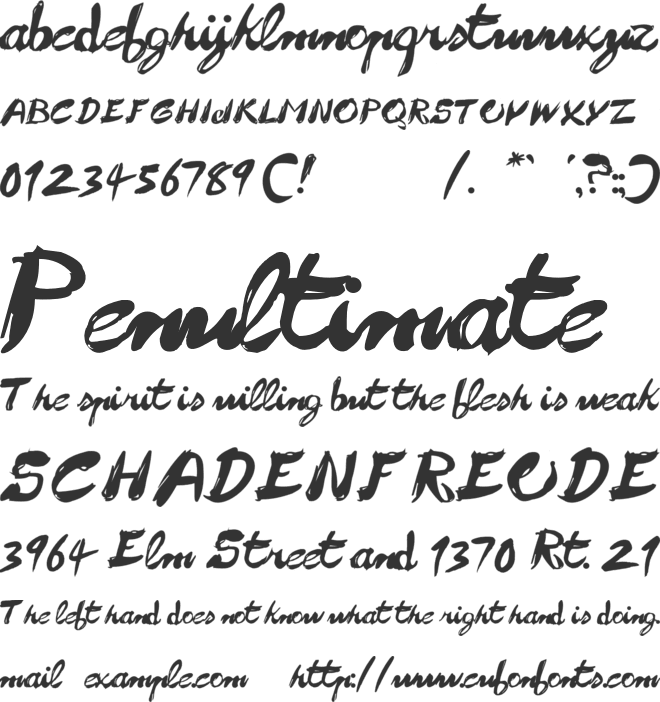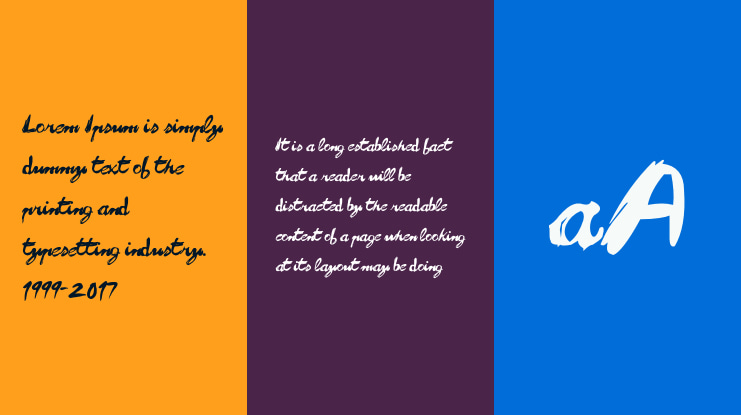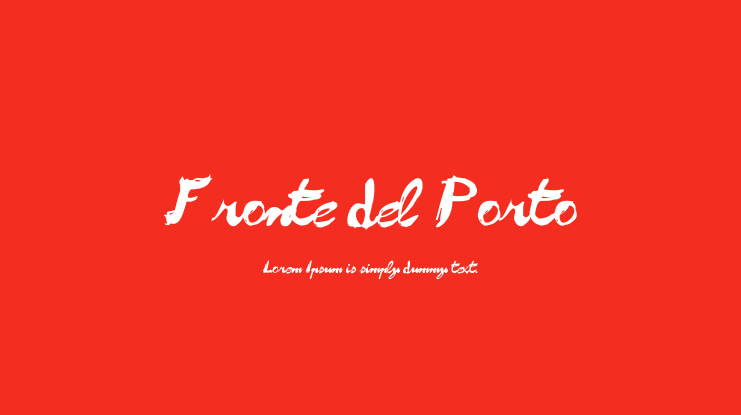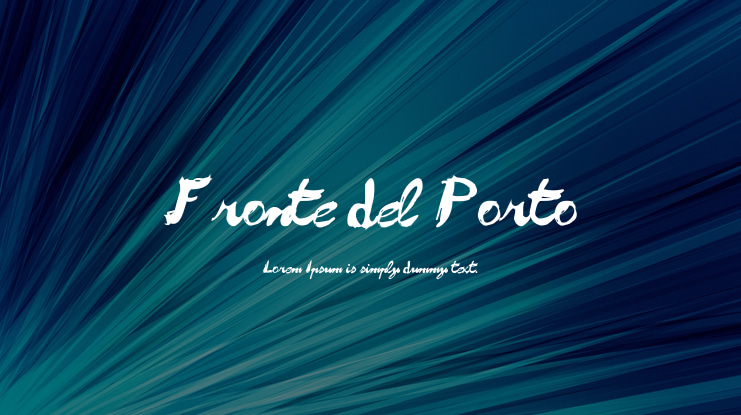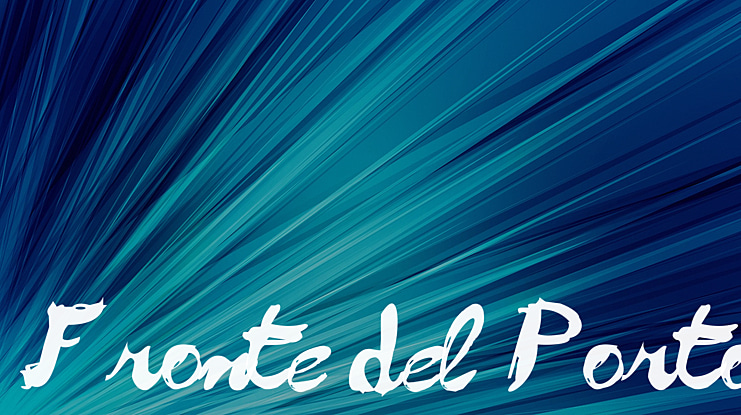
Fronte del Porto Font
P. A. Vannucci
FRONTE DEL PORTO font: directly from the Best movie by Elia Kazan, with MARLON BRANDO, the original font for all lovers.